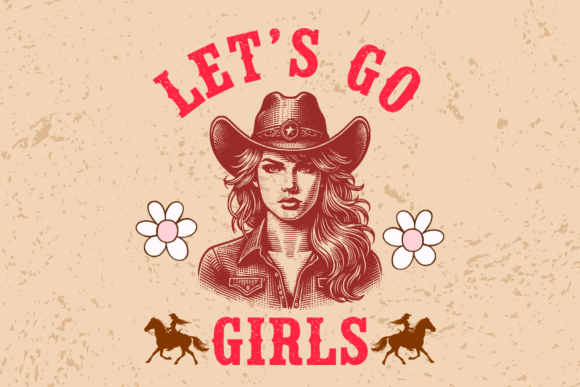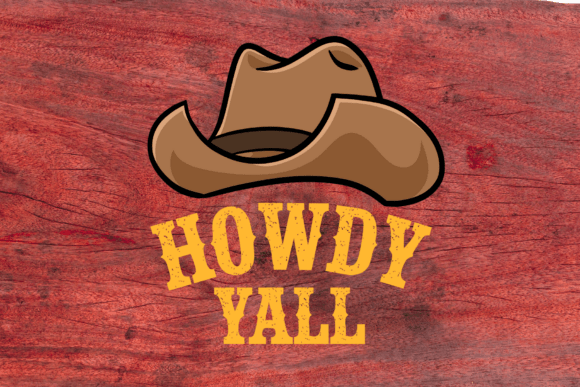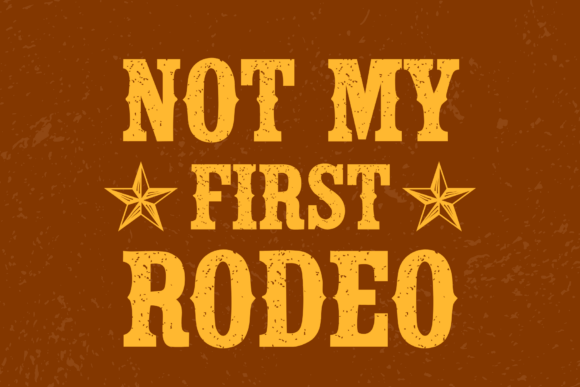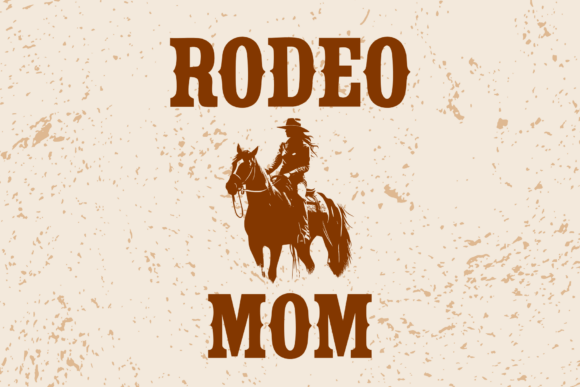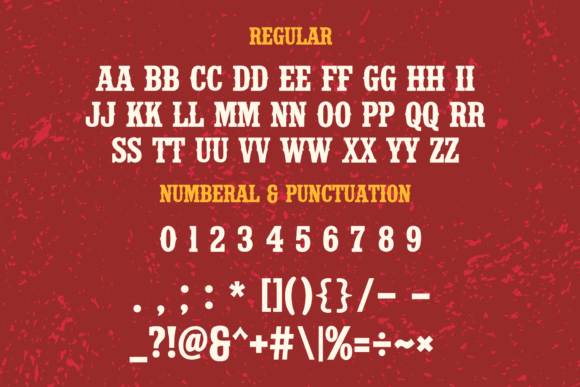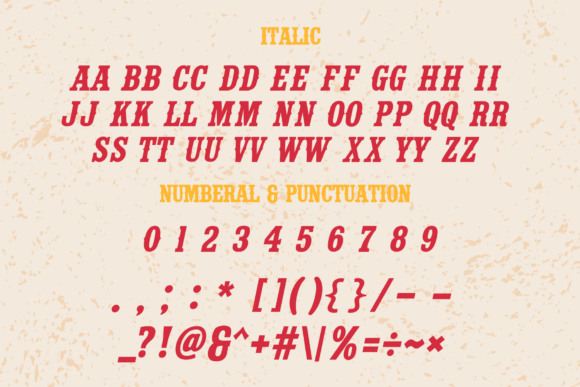
Cactus Ridge Font: The Perfect Western-Inspired Slab Serif Font for Your Designs
Are you looking for a font that embodies playfulness and authenticity? Look no further than Cactus Ridge, a Western slab serif font that’s perfect for adding a touch of rustic charm to your designs. Whether you’re working on a blog post, logo, branding project, ad, invitation, greeting card, planner, photo album, or decoration, Cactus Ridge is the ideal choice.
What is Cactus Ridge Font?
Cactus Ridge is a Western-inspired slab serif font that’s designed to bring a sense of playfulness and authenticity to your designs. Its unique blend of rugged and refined elements makes it perfect for a wide range of projects, from rustic-themed branding to creative crafts. With its bold and eye-catching appearance, Cactus Ridge is sure to grab attention and leave a lasting impression.
Key Features of Cactus Ridge Font
- Western-inspired design: Cactus Ridge is inspired by the classic fonts of the American West, with a unique blend of rugged and refined elements.
- Slab serif style: The font features a distinctive slab serif style, which adds a touch of ruggedness and authenticity to your designs.
- Playful and authentic feel: Cactus Ridge has a playful and authentic feel that’s perfect for adding a touch of personality to your designs.
- Highly versatile: The font is highly versatile and can be used for a wide range of projects, from blog posts and logos to invitations and decorations.
Uses for Cactus Ridge Font
Cactus Ridge is a highly versatile font that can be used for a wide range of projects, including:
- Blog posts: Add a touch of Western flair to your blog posts with Cactus Ridge, perfect for bloggers who want to stand out from the crowd.
- Logos and branding: Use Cactus Ridge to create a unique and memorable logo for your business or brand.
- Ads and marketing materials: The font’s bold and eye-catching appearance makes it perfect for ads and marketing materials that need to grab attention.
- Invitations and greeting cards: Add a touch of rustic charm to your invitations and greeting cards with Cactus Ridge.
- Planners and journals: Use Cactus Ridge to create a unique and functional planner or journal that’s perfect for crafty enthusiasts.
- Photo albums and scrapbooking: The font’s playful and authentic feel makes it perfect for photo albums and scrapbooking projects.
- Decorations and crafts: Cactus Ridge can be used for a wide range of decorations and crafts, from DIY signs to handmade cards.
Why Choose Cactus Ridge Font?
So why choose Cactus Ridge font for your designs? Here are just a few reasons:
- Unique and distinctive: Cactus Ridge is a unique and distinctive font that will help your designs stand out from the crowd.
- High-quality design: The font is designed to high standards, with clean lines and a bold appearance that’s perfect for a wide range of projects.
Cactus Ridge font is a Western-inspired slab serif font that’s perfect for adding a touch of playfulness and authenticity to your designs. With its unique blend of rugged and refined elements, it’s ideal for a wide range of projects, from rustic-themed branding to creative crafts. Whether you’re a designer, crafter, or DIY enthusiast, Cactus Ridge is a great choice for anyone looking to add a touch of Western flair to their designs.